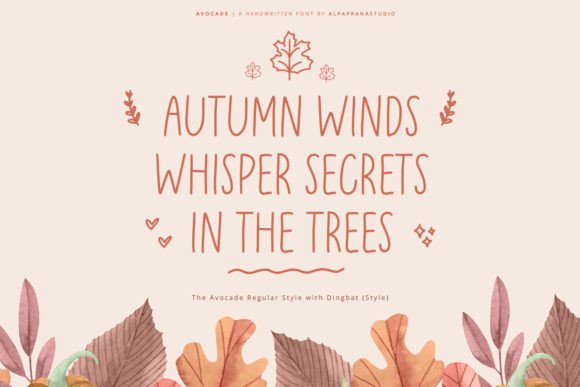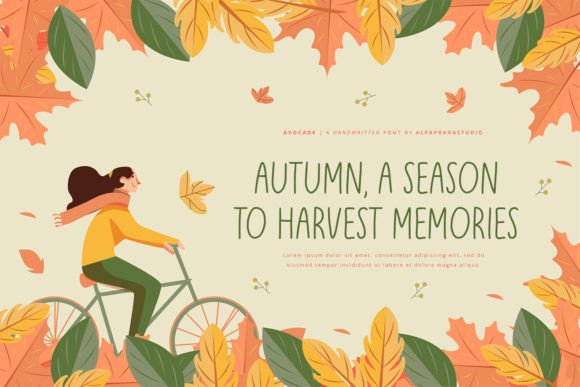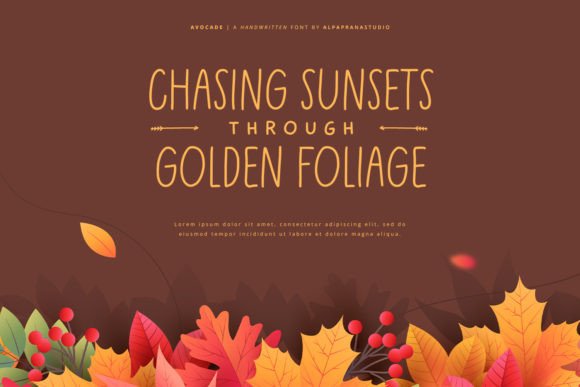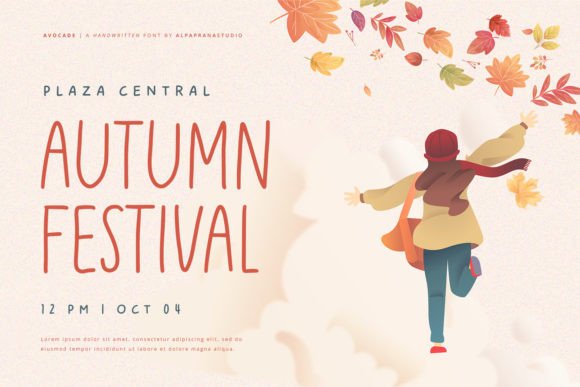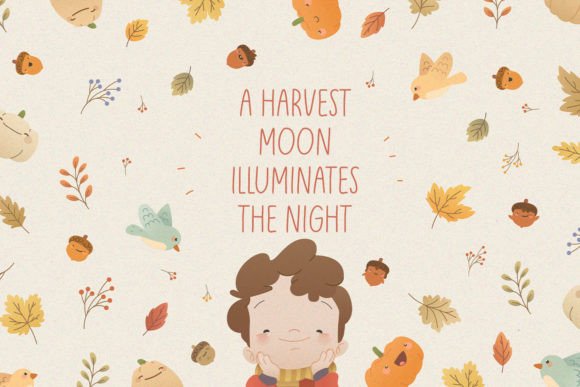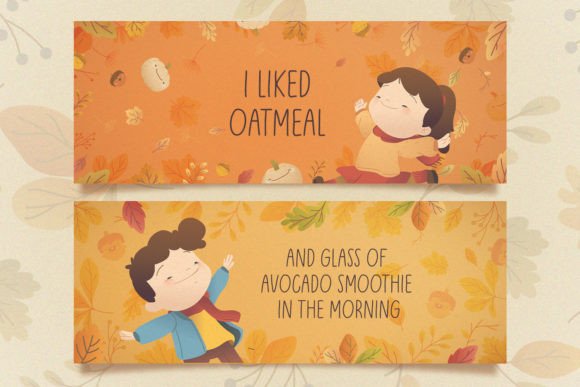
The Perfect Blend of Creativity and Style: Introducing the Avocade Font
Have you ever been stuck on a design project, staring at a blank page, trying to come up with the perfect combination of words and visuals to convey your message? You know, that moment when everything clicks and you feel a rush of inspiration? That’s exactly what happened to us when we first laid eyes on the Avocade Font.
This gorgeous handwritten font is designed to give your designs a modern, personal touch. With its versatility and range of applications, the Avocade Font is perfect for branding, logo design, lettering, and more. Whether you’re working on a packaging project, creating a poster, or designing a book cover, this font is sure to elevate your work and leave a lasting impression.
Key Features of Avocade Font
- Font Family: Avocade Font is available in a single font family, making it easy to use across various applications.
- Unique Characteristics: Avocade Font features a unique blend of modern and vintage elements, with clean lines, rounded edges, and a subtle texture that adds depth and character.
Avocade Font Review
First off, let’s talk about what makes the Avocade Font ✨ shine. The unique blend of modern and vintage elements gives it a distinctive charm that’s perfect for creative projects. The font’s subtle imperfections and hand-drawn feel add a touch of personality that’s hard to find in more polished fonts. I also appreciate the wide range of weights and styles available, making it easy to adapt to different design needs.
Now, let’s discuss some limitations ⚠️. While the Avocade Font is a great choice for headings and titles, it can be a bit too ornate for body text. The font’s high x-height and large letterforms can make it difficult to read in longer blocks of text. Additionally, the font’s irregular spacing and letterform variations can be a bit challenging to work with, especially for designers who prefer more uniform typography.
Overall, I’d say the Avocade Font is a great choice for designers looking for a unique and eye-catching font for their creative projects. While it may not be the best fit for body text or everyday use, it’s a great option for adding a touch of personality to headings, titles, and other design elements.
Design Considerations:
- Use Avocade Font for headings, titles, and other design elements where you want to add a touch of personality.
- Avoid using Avocade Font for body text, as its high x-height and large letterforms can be difficult to read.
- Be prepared to adjust spacing and letterform variations to achieve the desired look.
Avocado Font Practical Application Guide
For the best results, use Avocado Font in designs where a unique, handwritten feel is desired. This font is particularly well-suited for food-related designs, invitations, and social media graphics.
Alternatives to Avocade Font
Lato Font is a sans-serif typeface designed by Łukasz Dziedzic. It is a modern and clean font, suitable for use in various applications such as digital products, branding, and print materials. Lato Font is often used for body text due to its readability and versatility.
Comparison to Avocade Font: Lato Font has a more traditional sans-serif feel compared to Avocade Font’s futuristic and geometric design. Lato Font is a more versatile and widely used font, suitable for a broader range of applications.